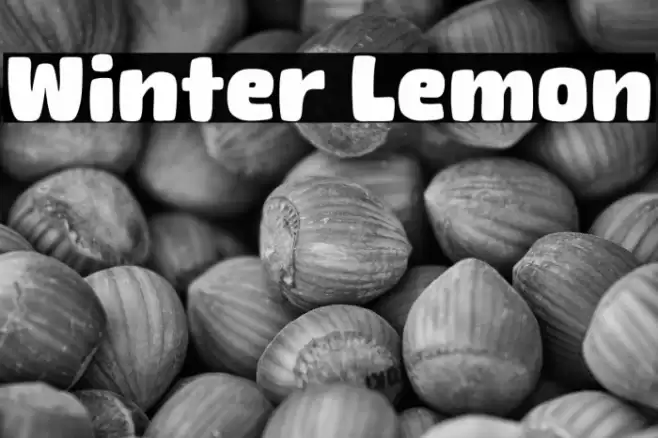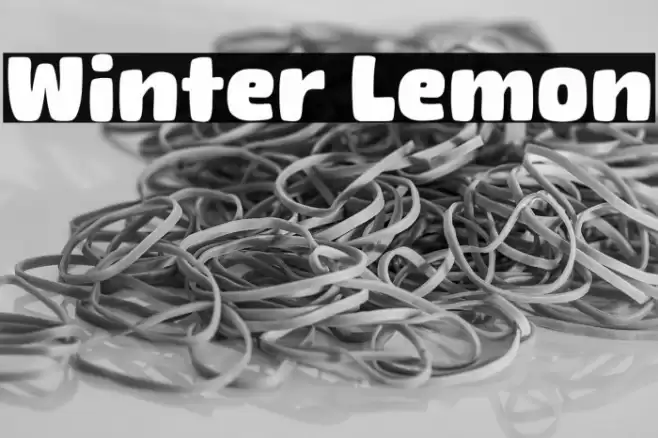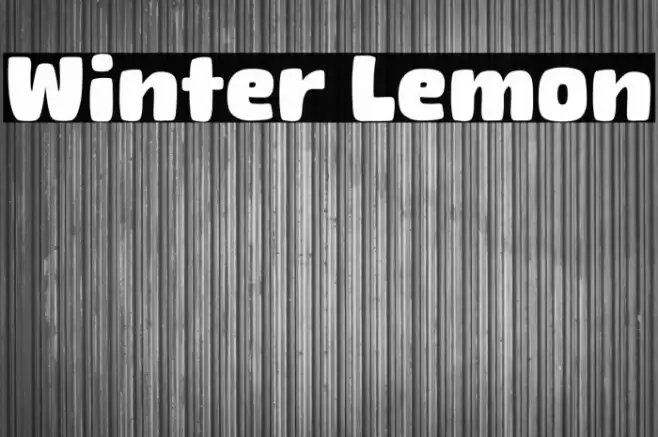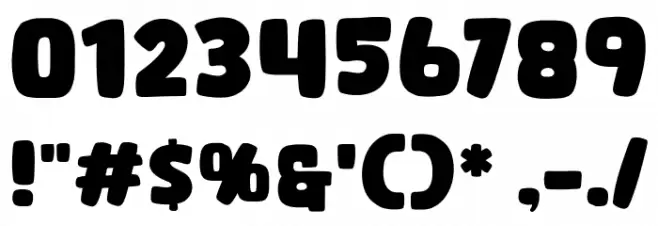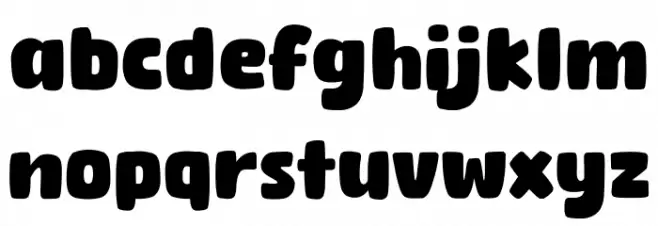
Winter Lemon Font
Winter Lemon Description
This playful and bold typeface features rounded, thick strokes that give it a friendly and approachable appearance. The characters are uniformly wide, creating a cohesive and balanced look across both uppercase and lowercase letters. The numbers and special characters maintain the same playful style, making them easily readable and visually appealing. The font's design is reminiscent of hand-drawn lettering, adding a touch of whimsy and charm. Its boldness ensures that it stands out, making it ideal for attention-grabbing headlines or creative projects.
A bold, playful typeface with rounded, thick strokes and a hand-drawn feel from Uncategorized fonts.
- Font: Winter Lemon
- Proposed Projects: Ideal for children's books, playful branding, posters, and creative headlines.
- Overall Style: Playful, Whimsical